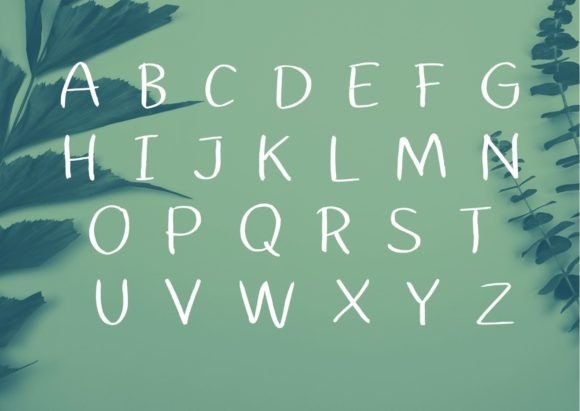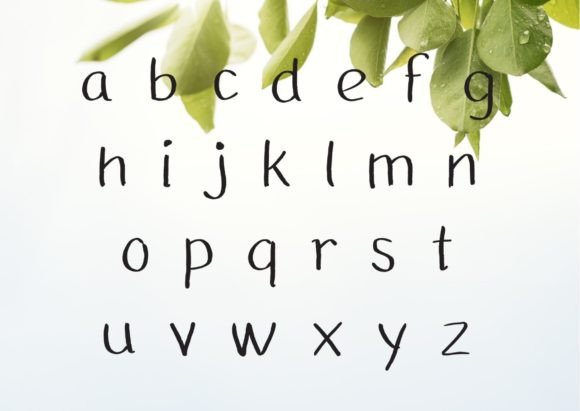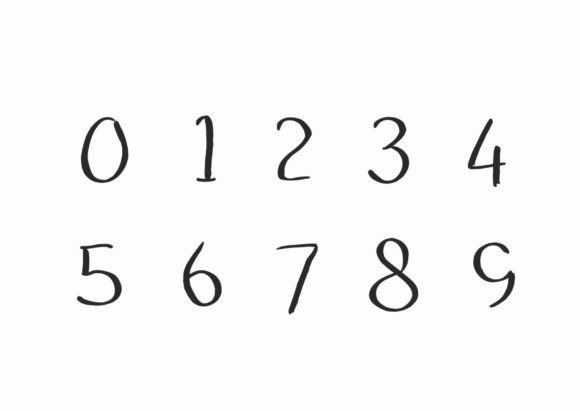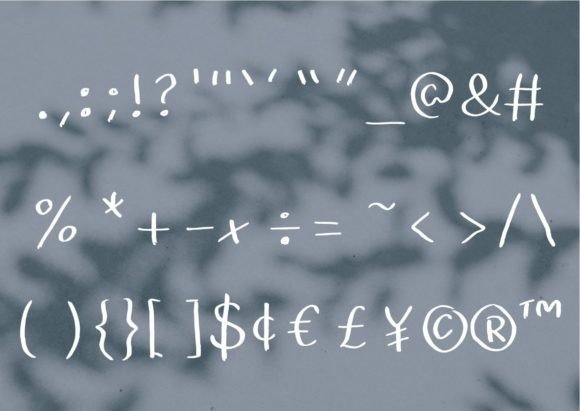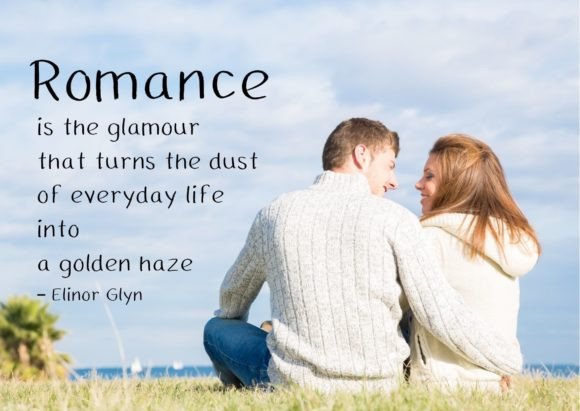
Rakko Font
“Rakko” is a simple and friendly handwriting font that exudes a cool and approachable vibe. This versatile font is well-suited for both informal and formal text, making it an excellent choice for a wide range of design applications. Whether you’re working on quotes, product designs for mugs or shirts, or any project where you want to convey a friendly and relaxed atmosphere, “Rakko” aims to create a welcoming and stylish look.
The charm of “Rakko” lies in its ability to exude a sense of ease and friendliness. Each character is crafted to have a relaxed and approachable appearance, making it perfect for projects where you want to create a laid-back and welcoming atmosphere. Imagine using “Rakko” for a cafe’s menu board, where the font itself contributes to the casual and inviting ambiance.
For product designs, quotes, informal and formal text, and a variety of creative content, “Rakko” adds a touch of style and friendliness that connects with your audience on a personal level. It has a universal appeal that can make your projects feel relatable and engaging.
Furthermore, “Rakko” offers readability and adaptability, ensuring that your text remains clear and easily legible, even in casual or decorative designs. This attribute is essential when conveying messages or creating products that promote a friendly and stylish aesthetic.
In summary, “Rakko” is more than just a font; it’s a design asset that aims to create a sense of friendliness and style in your creative work. Its handwriting style and versatility make it suitable for a variety of applications, and its ability to convey a relaxed and inviting atmosphere sets it apart. With “Rakko” in your font collection, your design projects will radiate a sense of approachability and style that resonates with your audience and leaves a lasting impression.